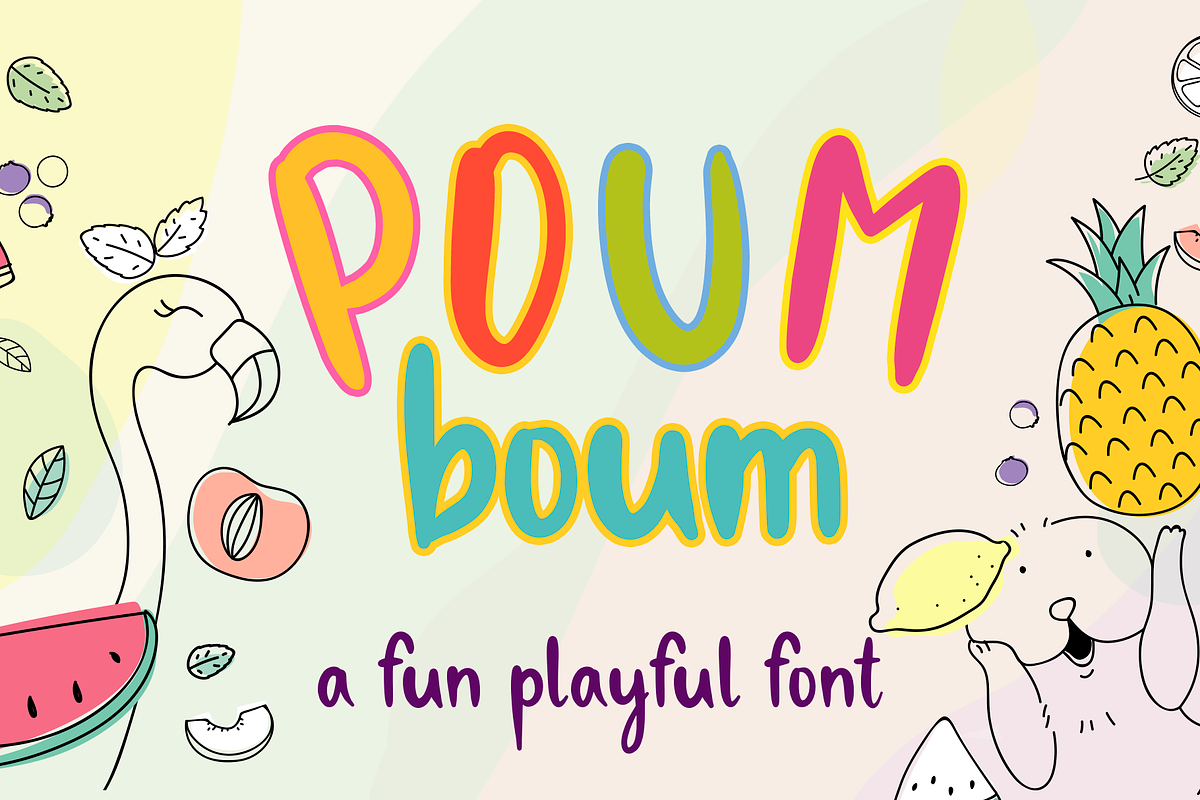
Poum Boum Font Free Download is a playful and energetic typeface that bursts with comic book style and cartoon-inspired fun. With bold letterforms, dynamic shapes, and an animated personality, Poum Boum is perfect for children’s books, comic titles, game interfaces, party invitations, fun branding, and vibrant social media content.
Its expressive, exaggerated design makes every word feel loud and alive—ideal for projects that need to shout with joy and creativity. Whether you're aiming for a retro pop-art feel or a modern cartoon vibe, Poum Boum adds punch and personality to every layout.